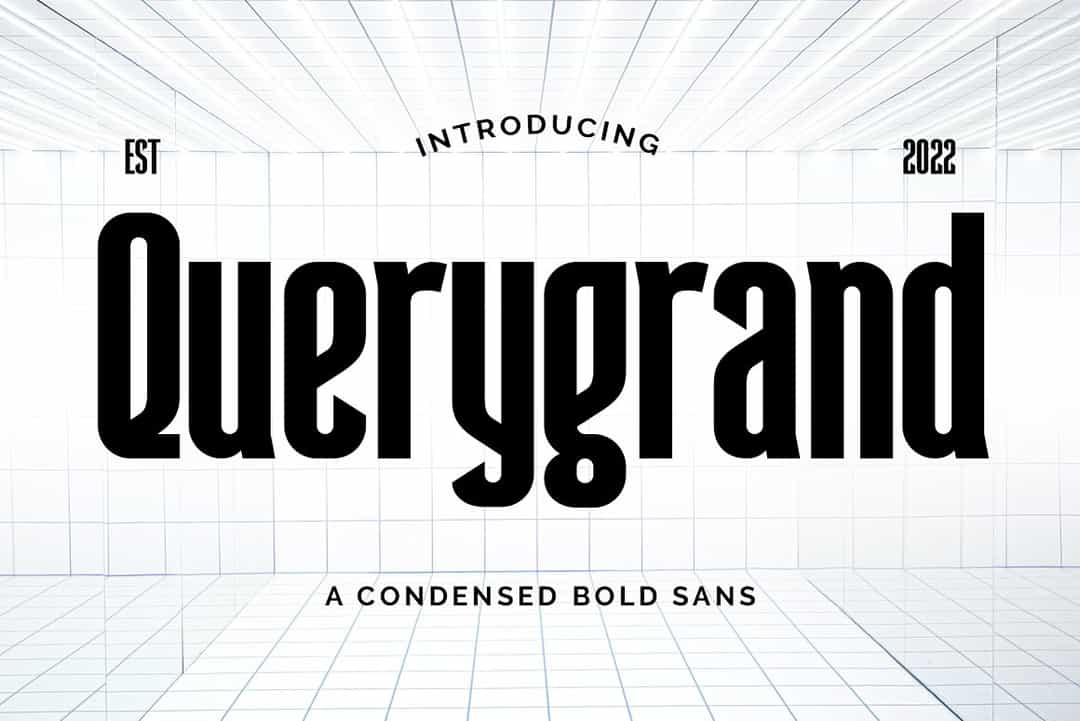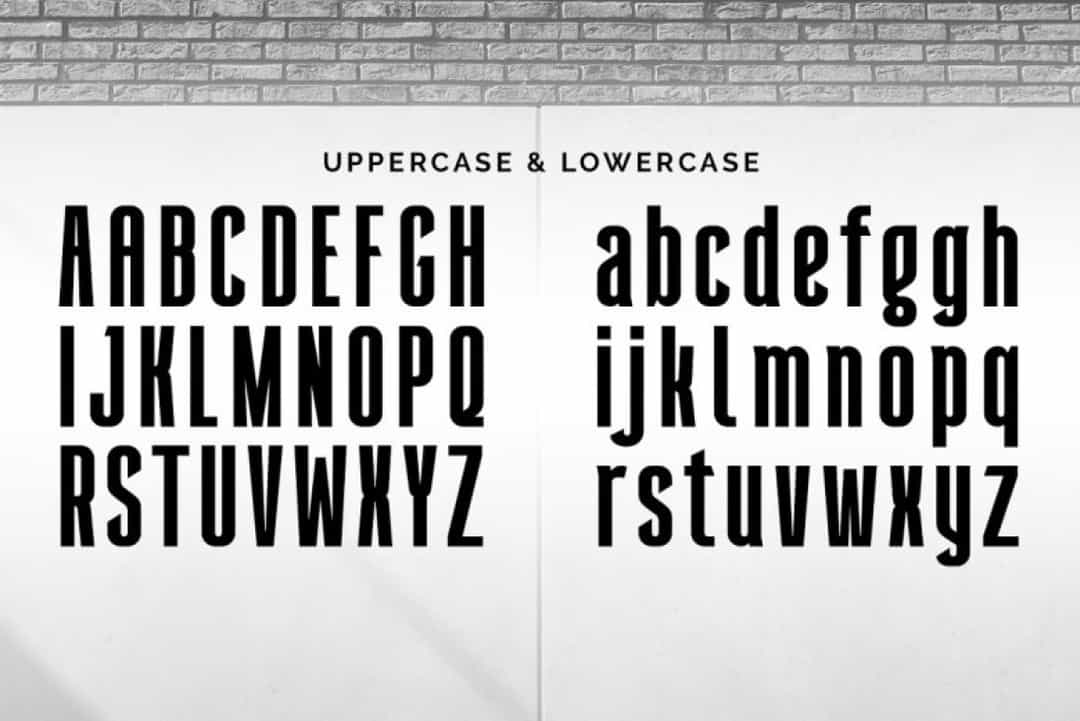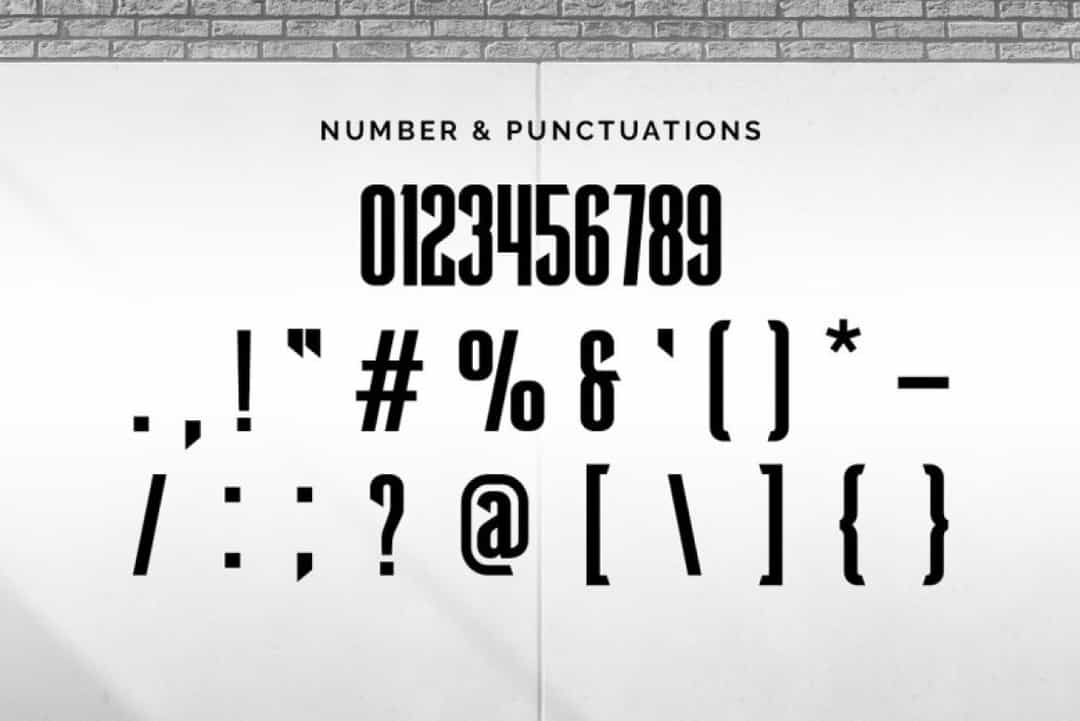
“Querygrand is an authentic condensed bold Sans Serif Font, featuring captivating variations that add visual interest and professionalism to your designs. Ideal for titles magazine titles typography brochures packaging designs and other applications where a more modern and professional appearance is desired.”